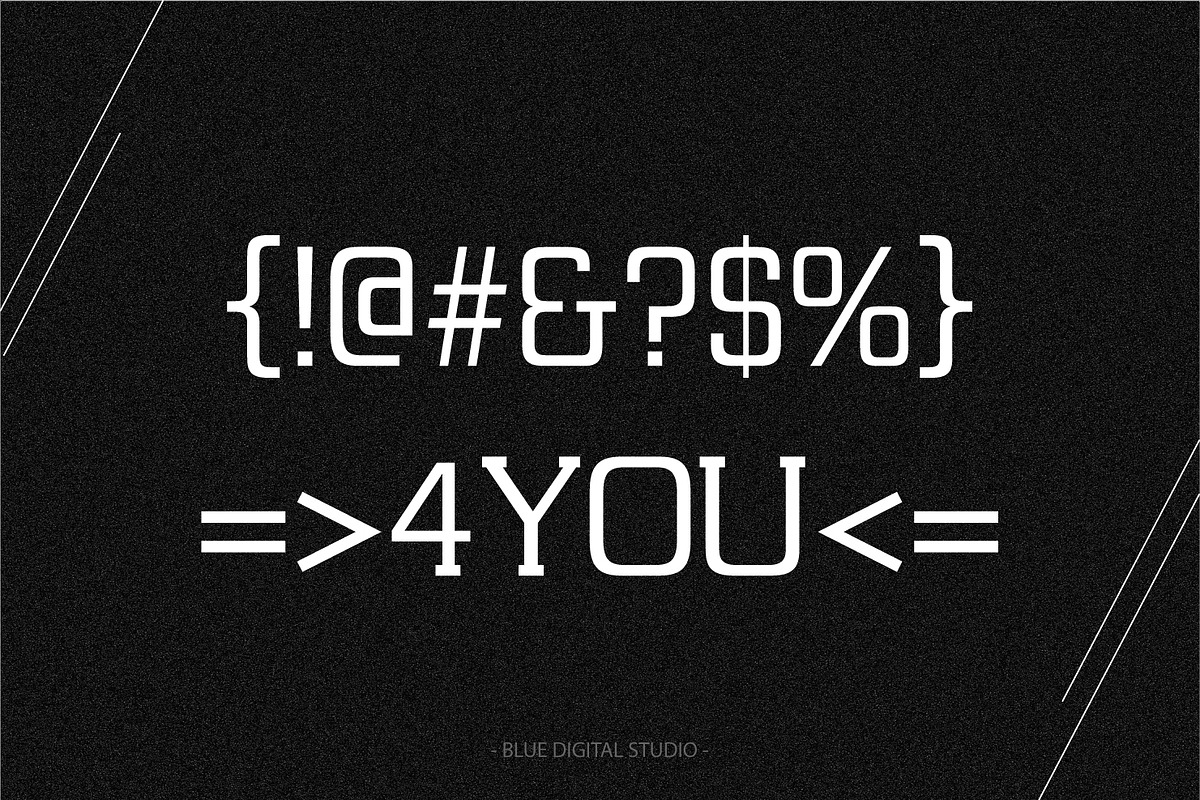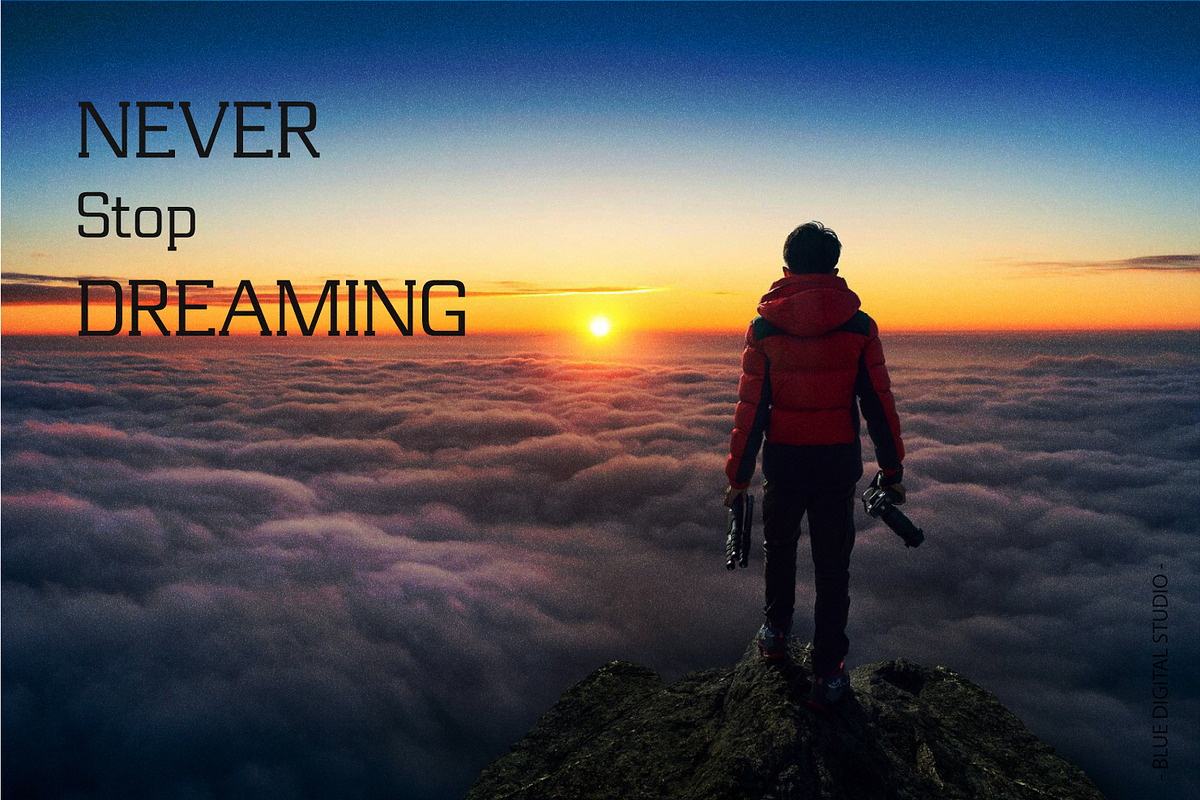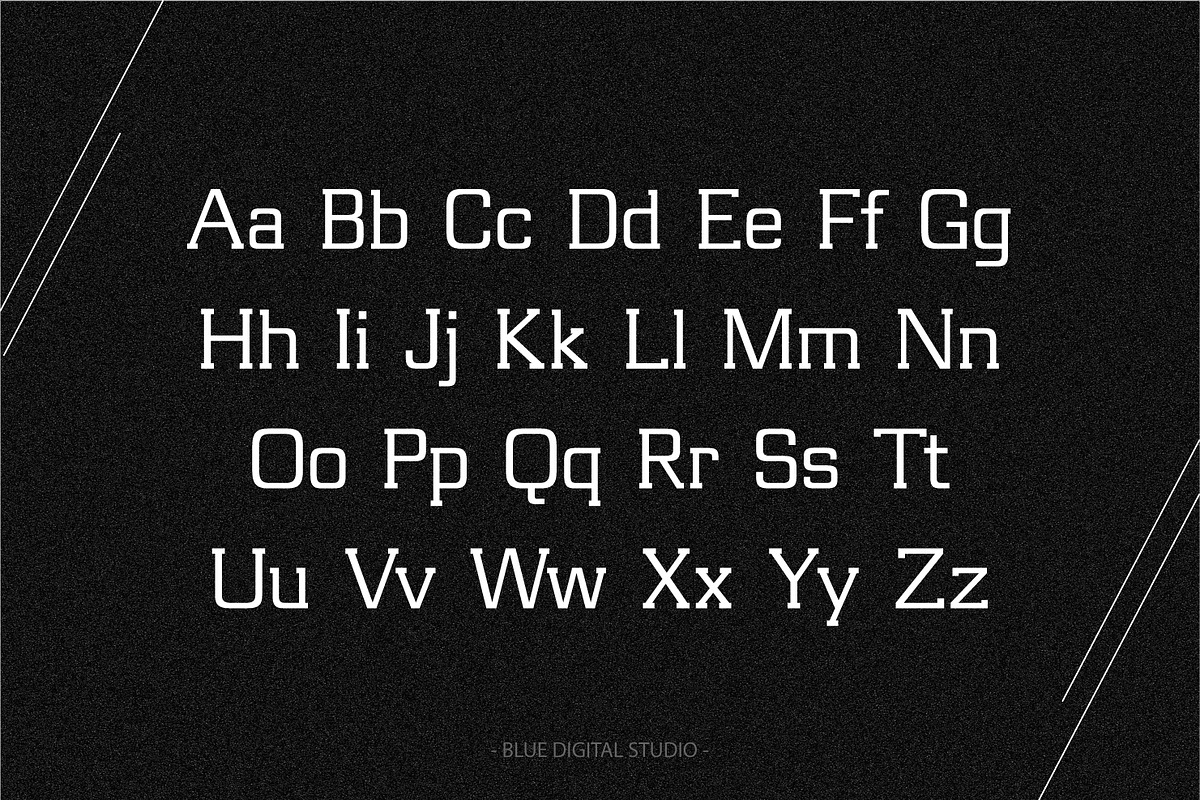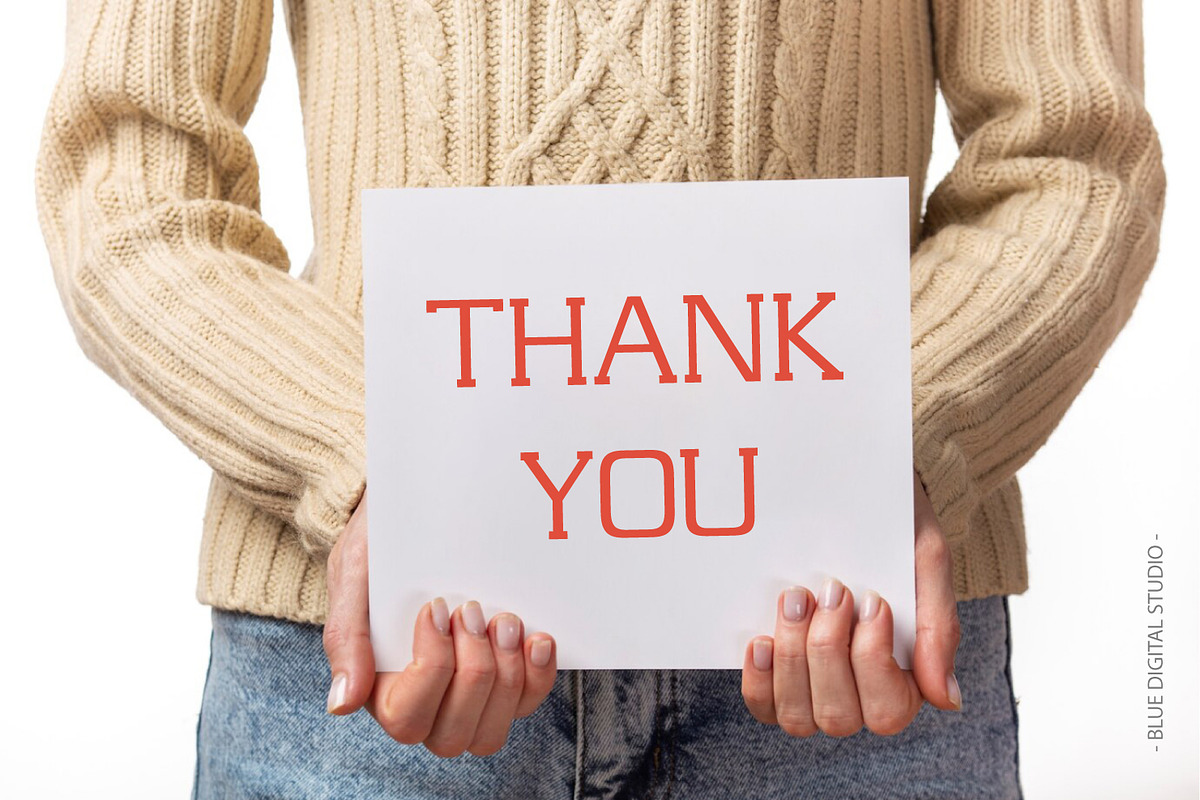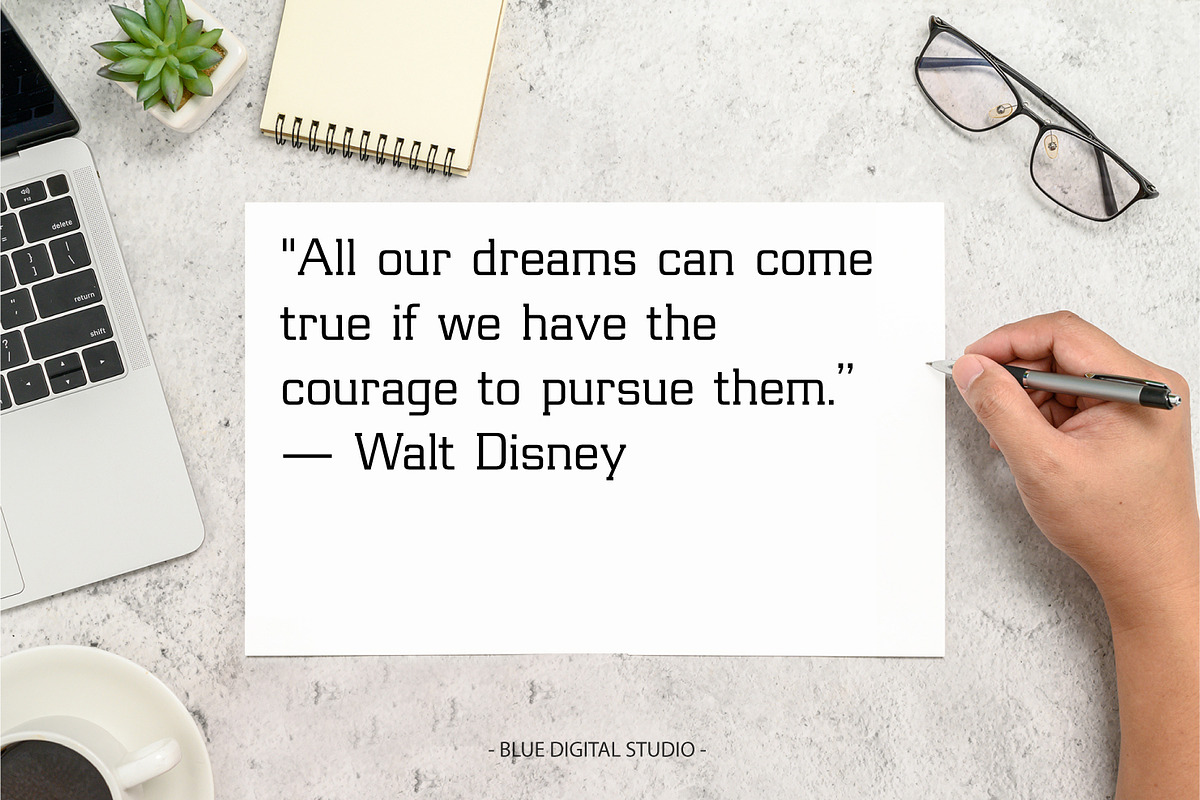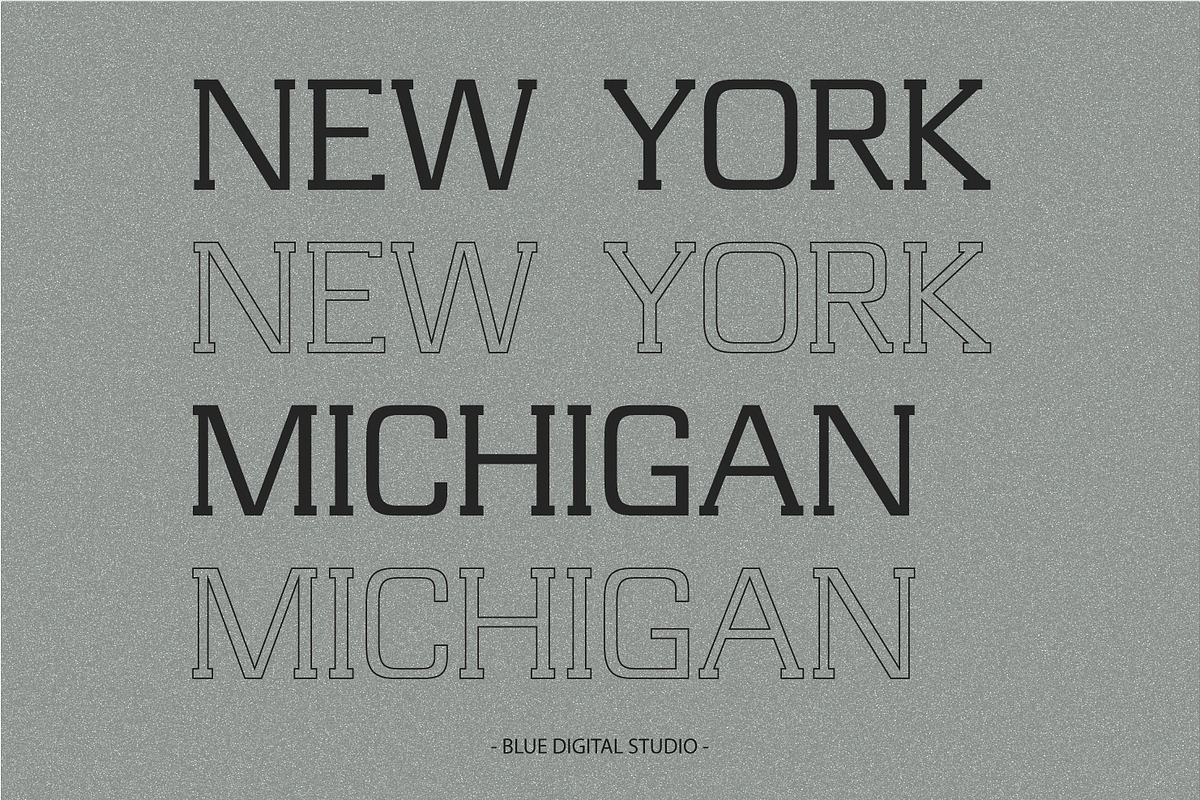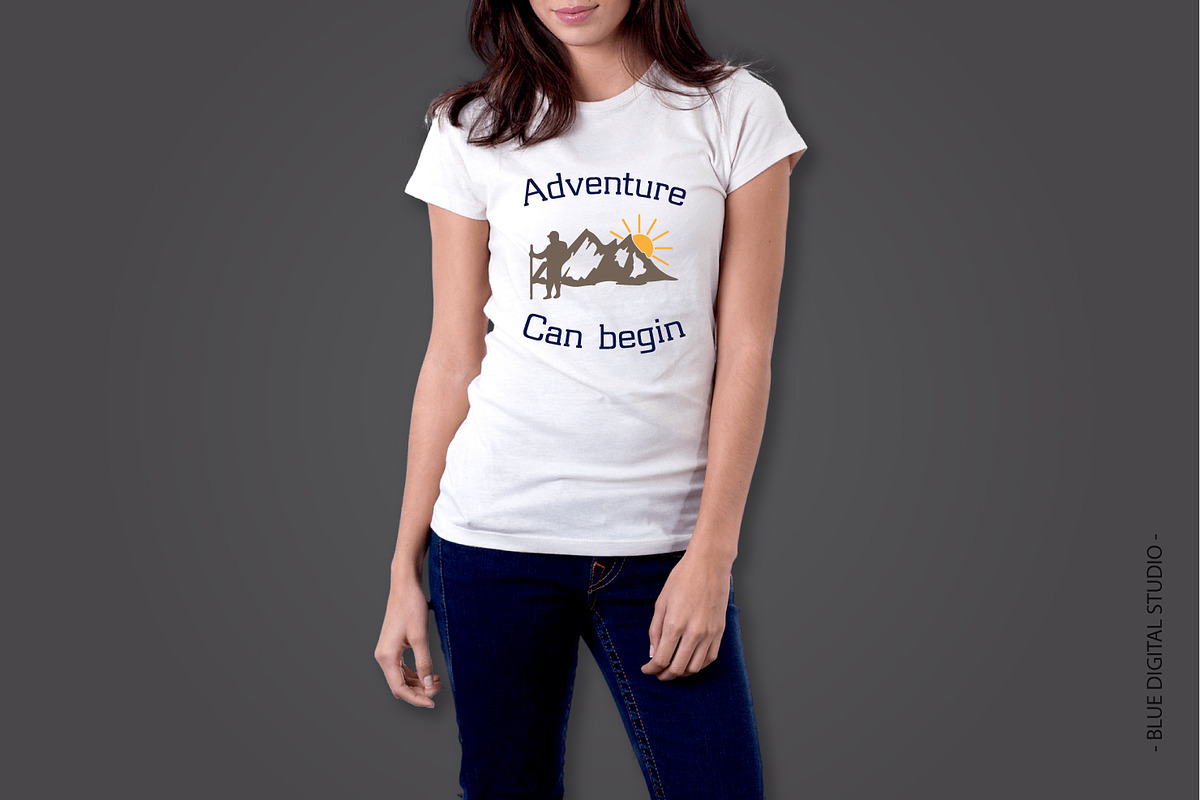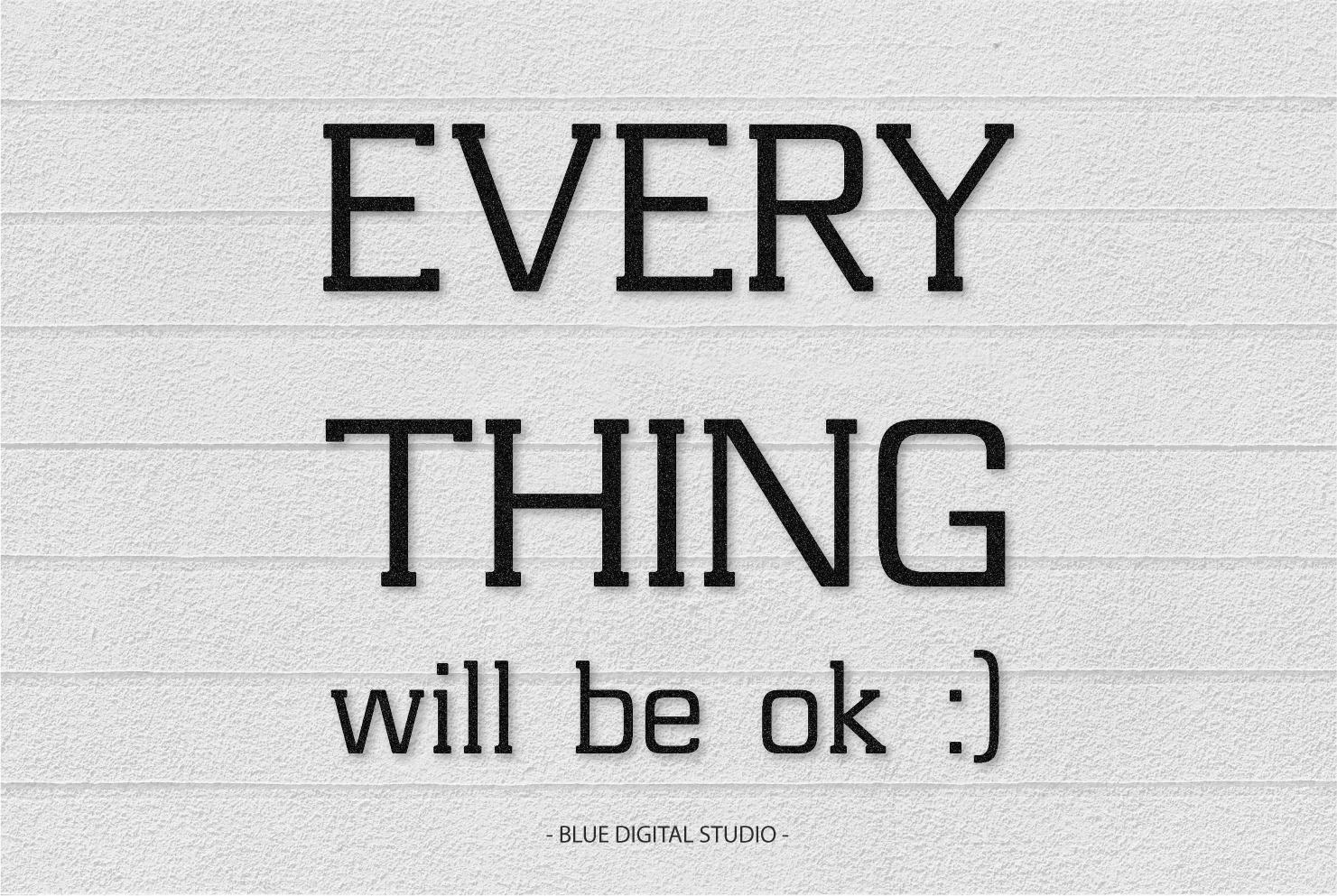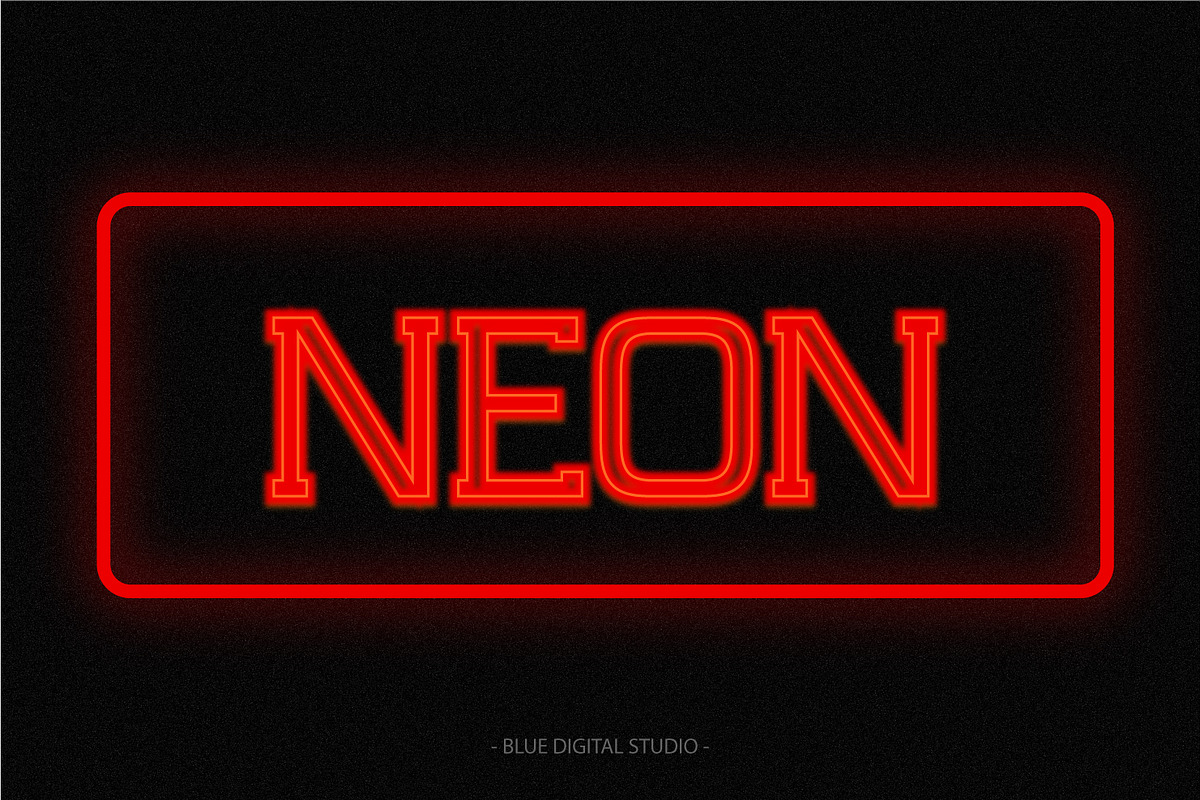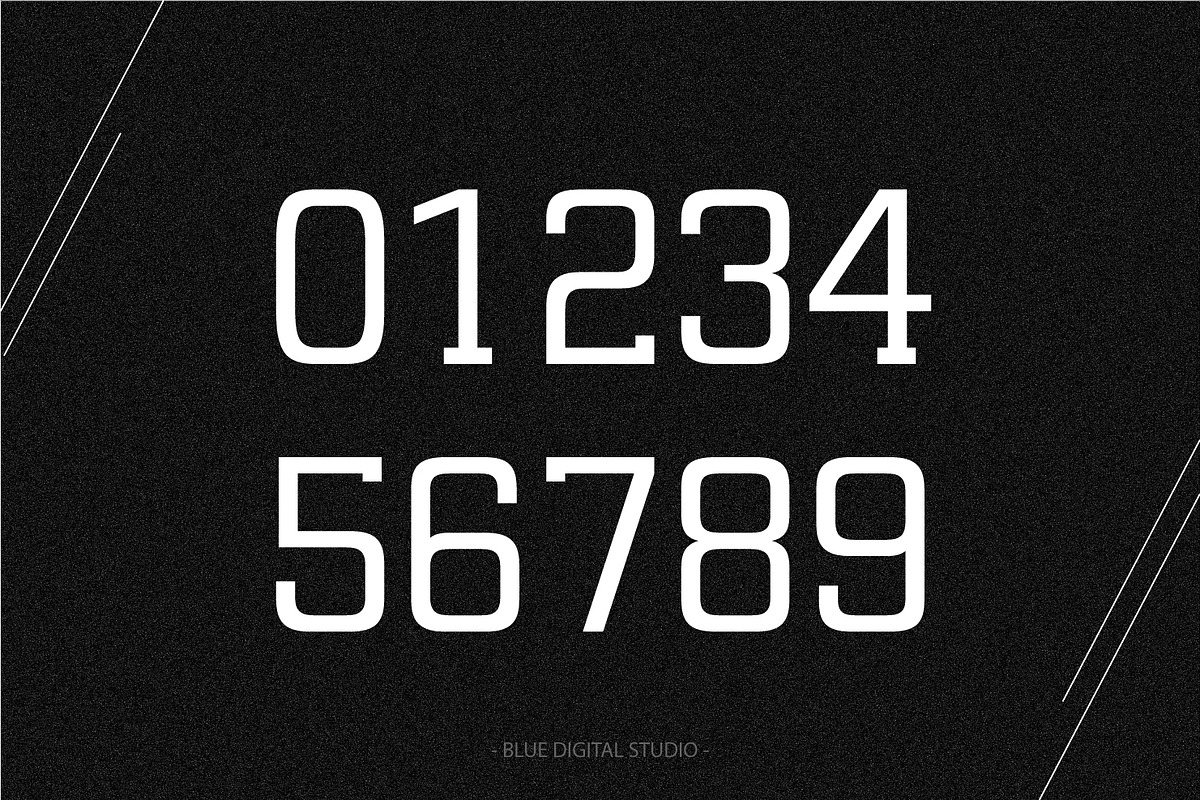
Alabama-Sky Font | Modern Slab Serif
✨ Introducing the Alabama Sky Font – a stunning and versatile typeface designed to make your creative projects shine!
Perfect for logos, branding, headlines, posters, product packaging, apparel prints, invitations, and social media designs, this elegant and modern font blends a clean aesthetic with timeless style. Whether you're working on a modern minimalist brand or a retro vintage project, Alabama Sky Font adds the perfect professional touch.
- Full character set: uppercase, lowercase, numerals, punctuation, and symbols.
- Multilingual support with accented characters – perfect for global designers.
- Branding & logo design projects
- Social media quotes & posts
- Modern and vintage-style typography
- Website headers, blogs, and digital content
- Print-on-demand products like T-shirts, mugs, and posters
💡 WHY YOU’LL LOVE IT Alabama Sky Font is designed for clarity, personality, and versatility. It’s easy to read, visually balanced, and ready to elevate your typography game. Whether you're a designer, creator, or small business owner, this typeface helps your visuals stand out in a professional and creative way.